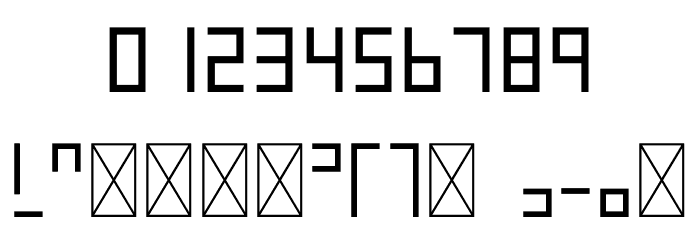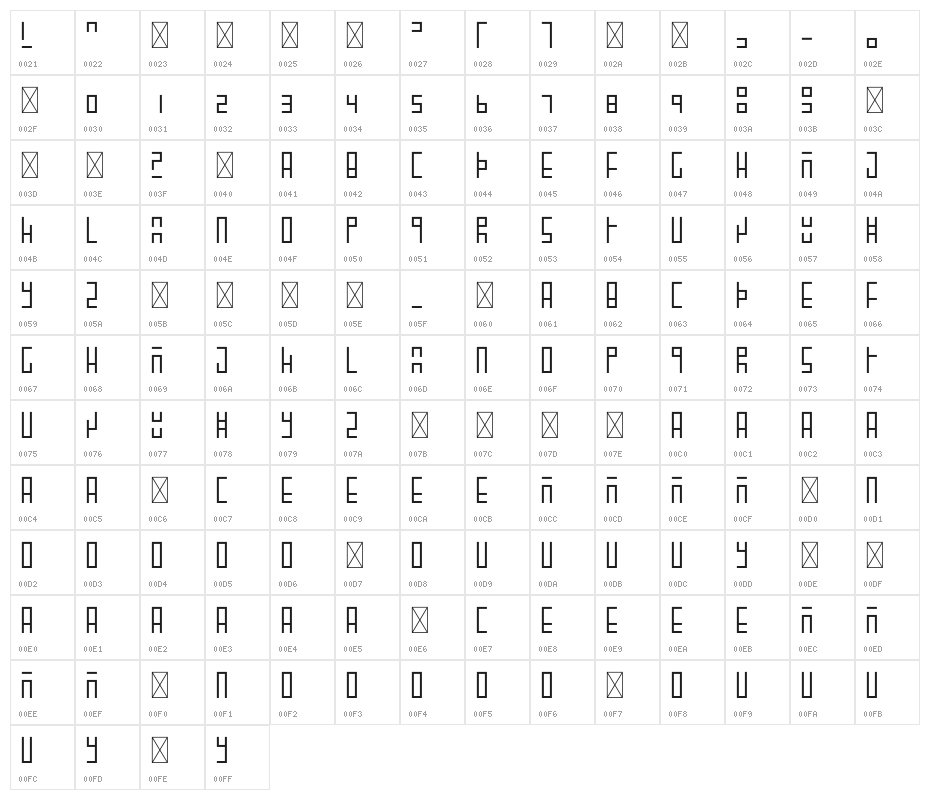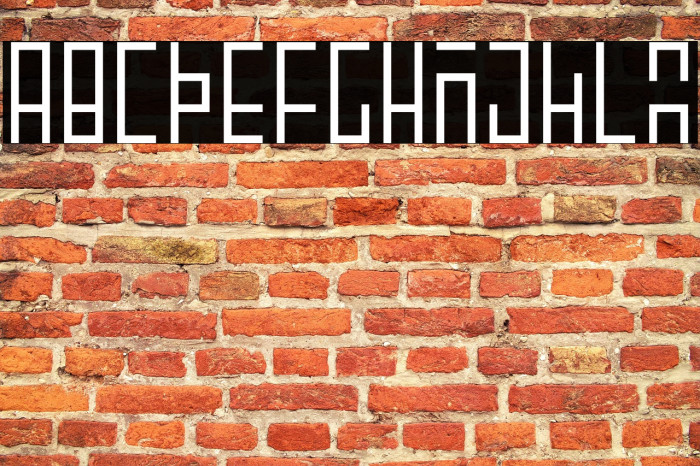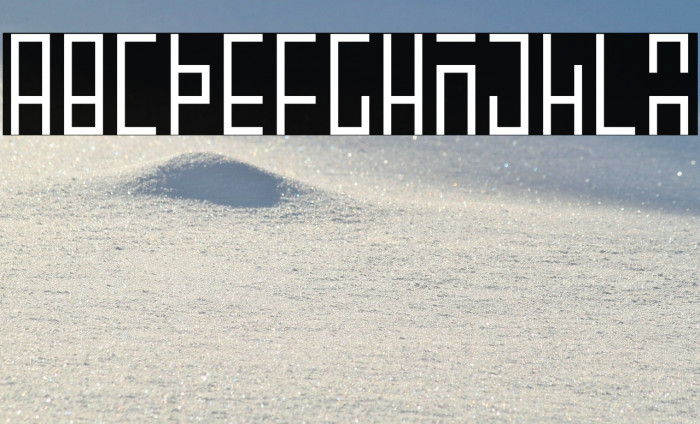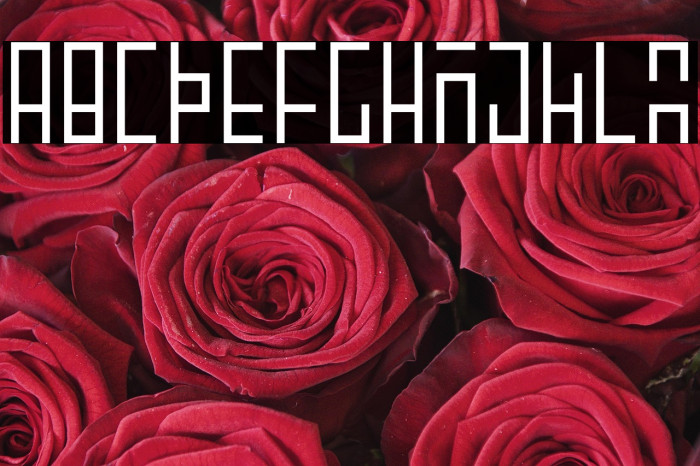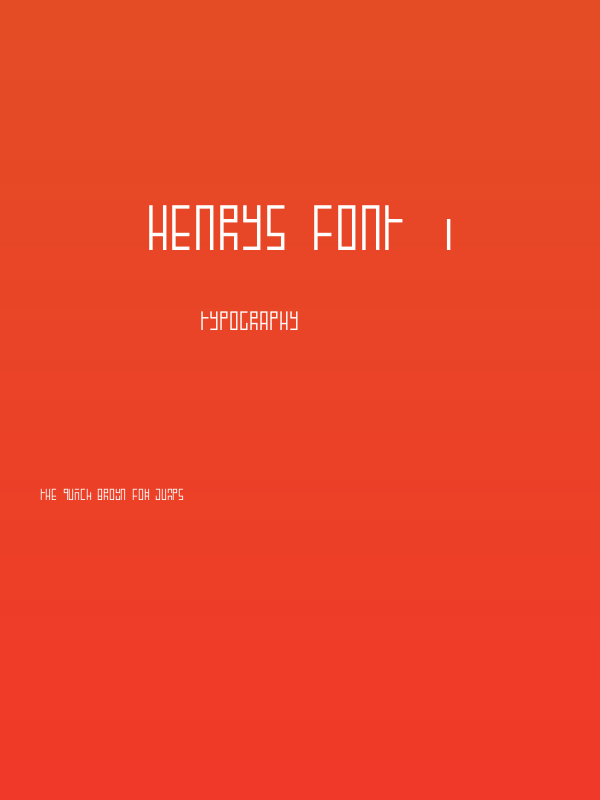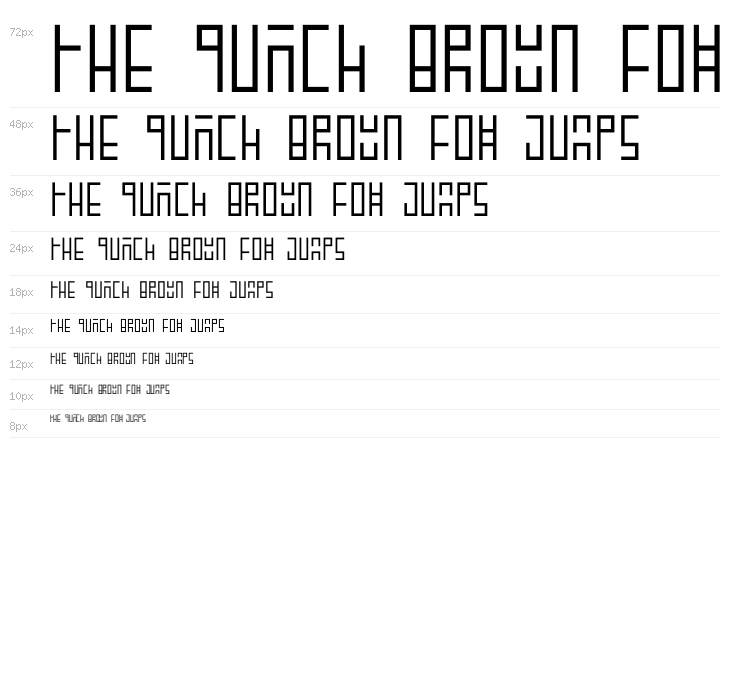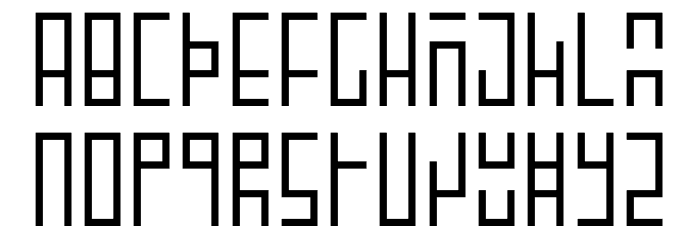
Henrys Font 1 Font
Henrys Font 1 Description
This font features a geometric and futuristic design, characterized by its angular and block-like letterforms. The uppercase and lowercase letters share a consistent height, creating a uniform appearance. The numerals and special characters maintain the same geometric style, enhancing the overall cohesive look. The font's clean lines and sharp angles give it a modern and technological feel, making it suitable for digital and tech-related projects. The spacing between characters is tight, contributing to its compact and efficient design.
| Use Case | Logos, Headlines, Digital interfaces |
| Proposed Projects | Ideal for tech branding, digital interfaces, video game design, and modern posters. |